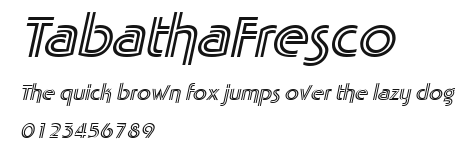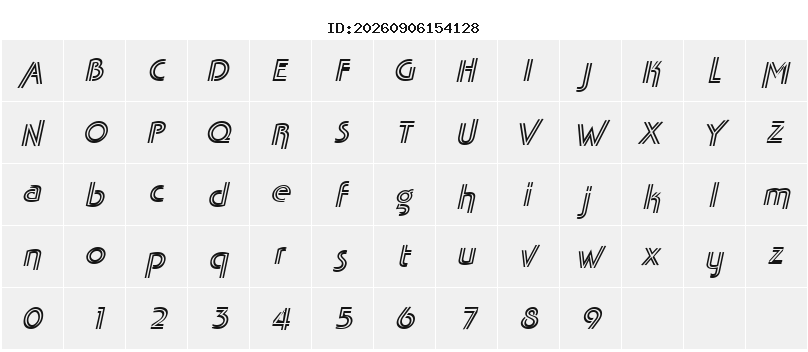
• Font Name: TabathaFresco
• Full Font Name: TabathaFresco Italic
About TabathaFresco.ttf
TabathaFresco.ttf is a modern, elegant sans-serif font designed for ultimate readability and visual harmony. Perfect for branding, headlines, web design, and print materials.